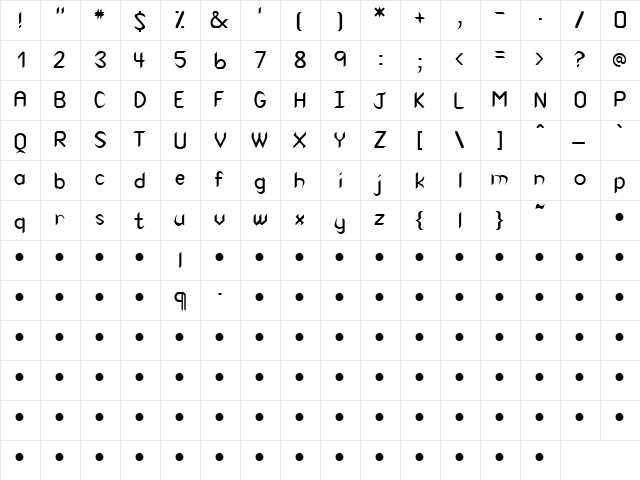
QTCanaithtype Regular
Design Context for QTCanaithtype Typeface
QTCanaithtype is a composed and adaptable typeface that performs quietly and consistently across a wide range of design contexts.